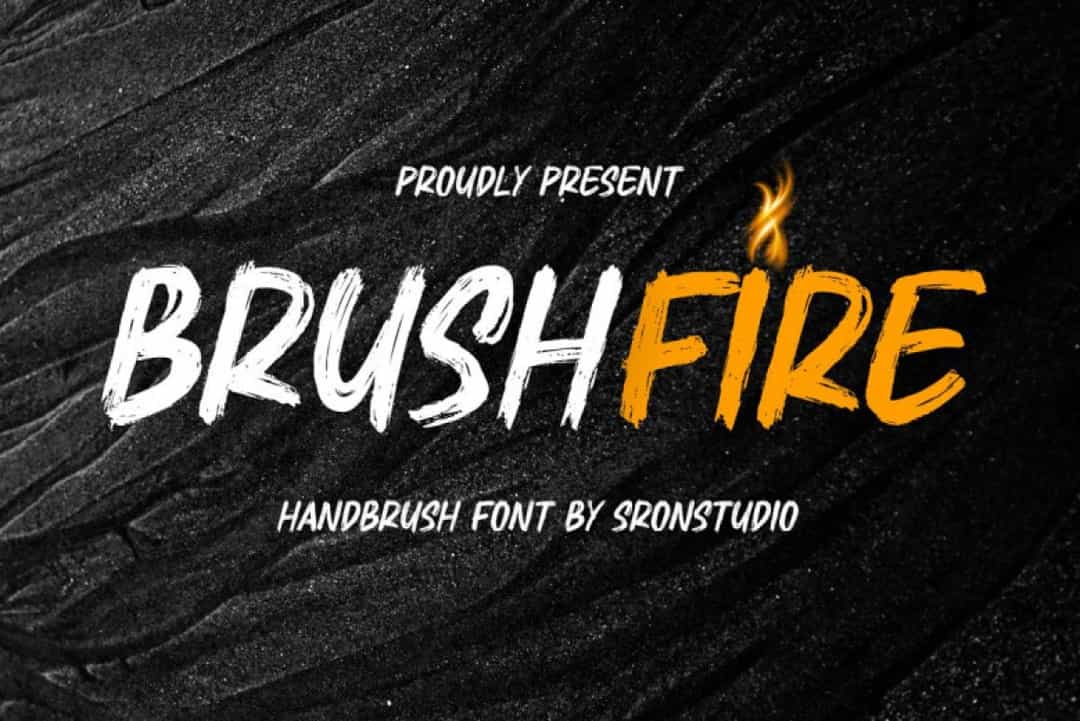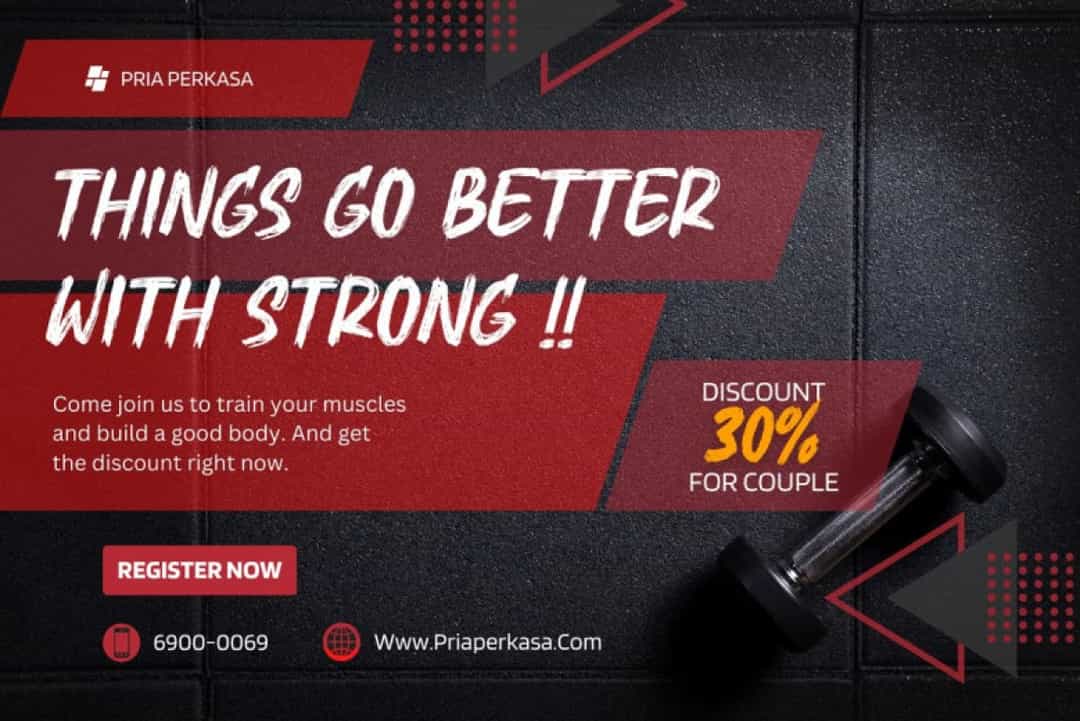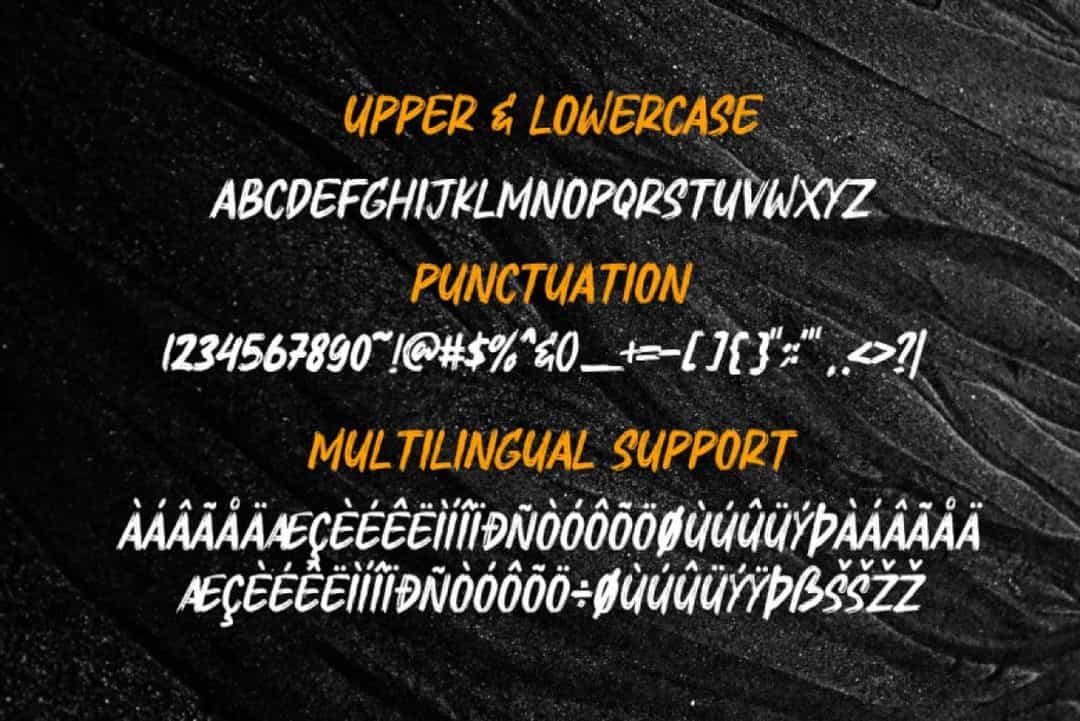
“Brushfire” is an engaging script font with textured handbrush strokes to create an organic and rustic aesthetic. This font adds an appealing and contemporary edge to any design project and gives depth and dimension due to its texture; furthermore it’s both clear and appealing – perfect for wide variety of designs!